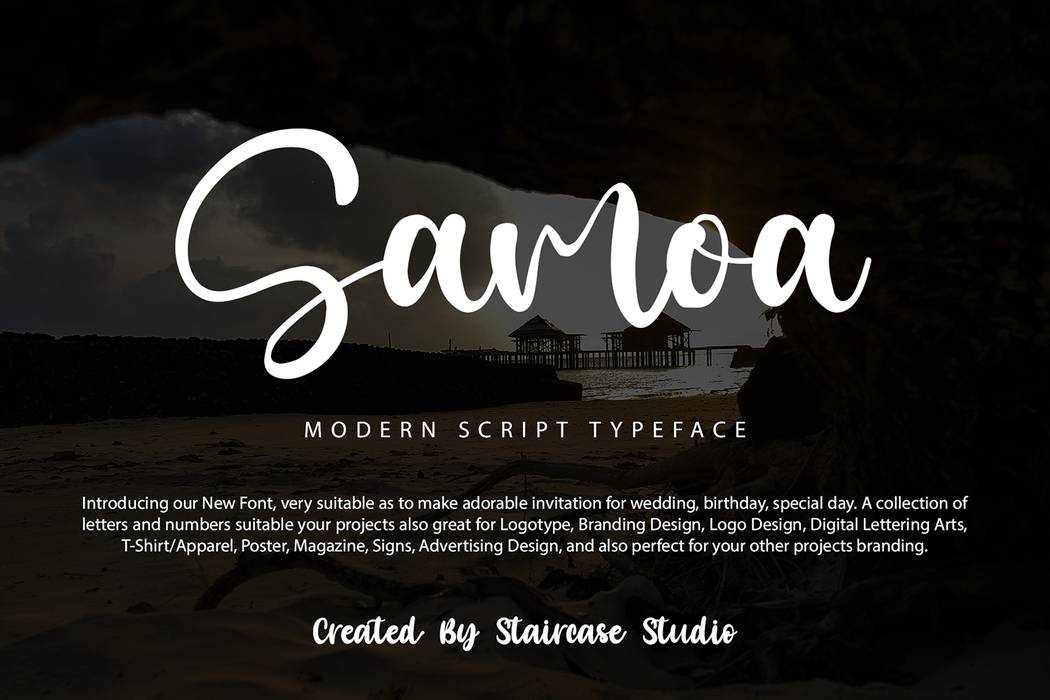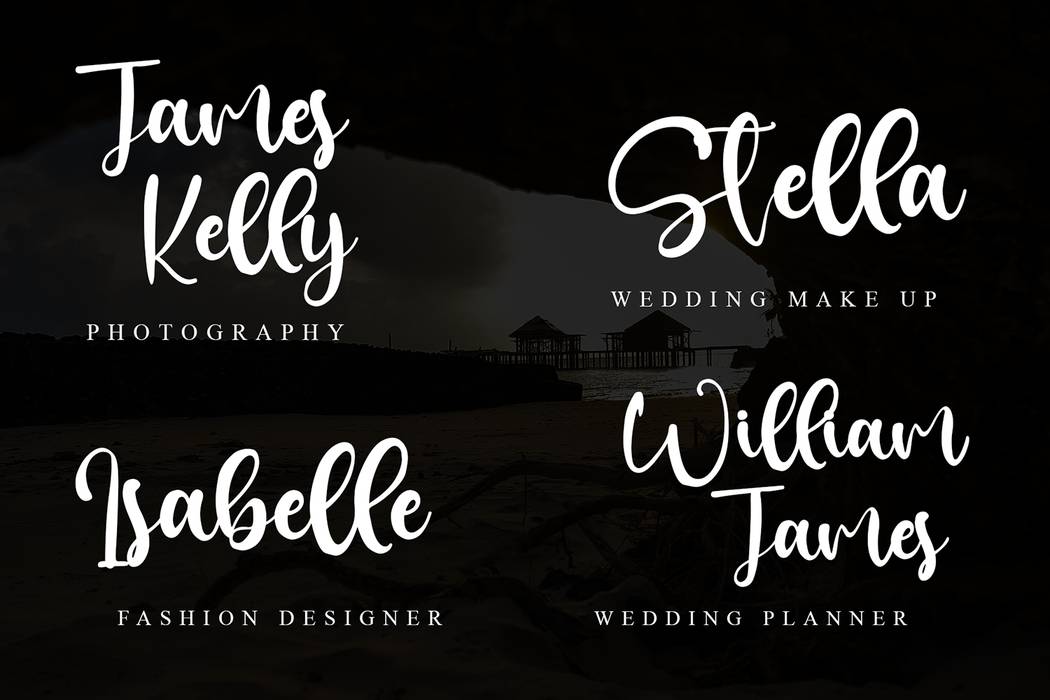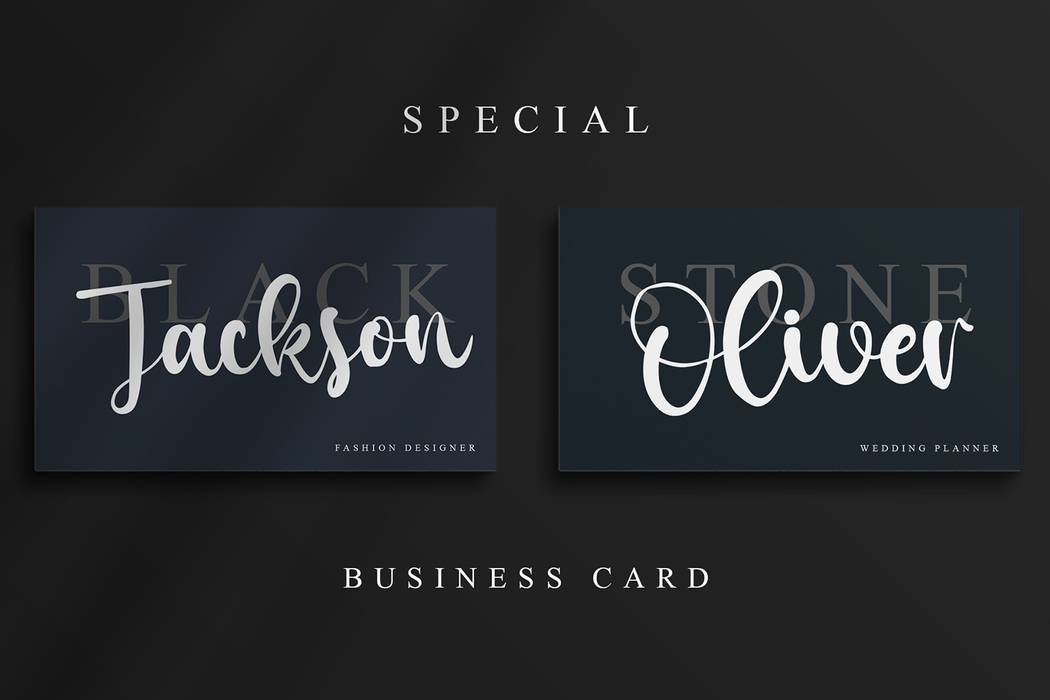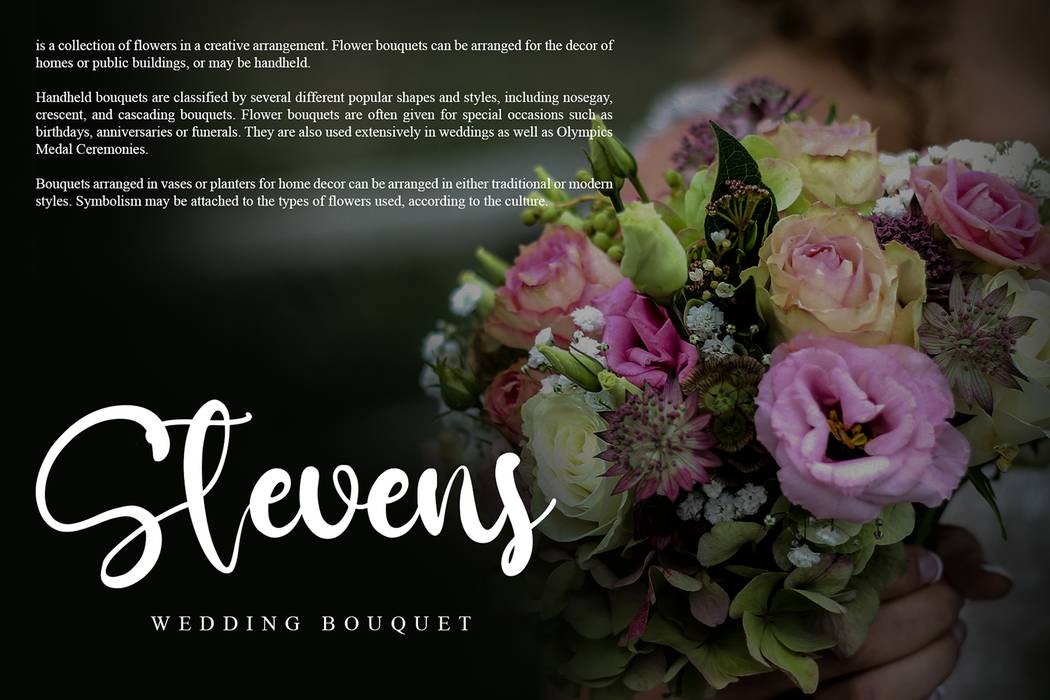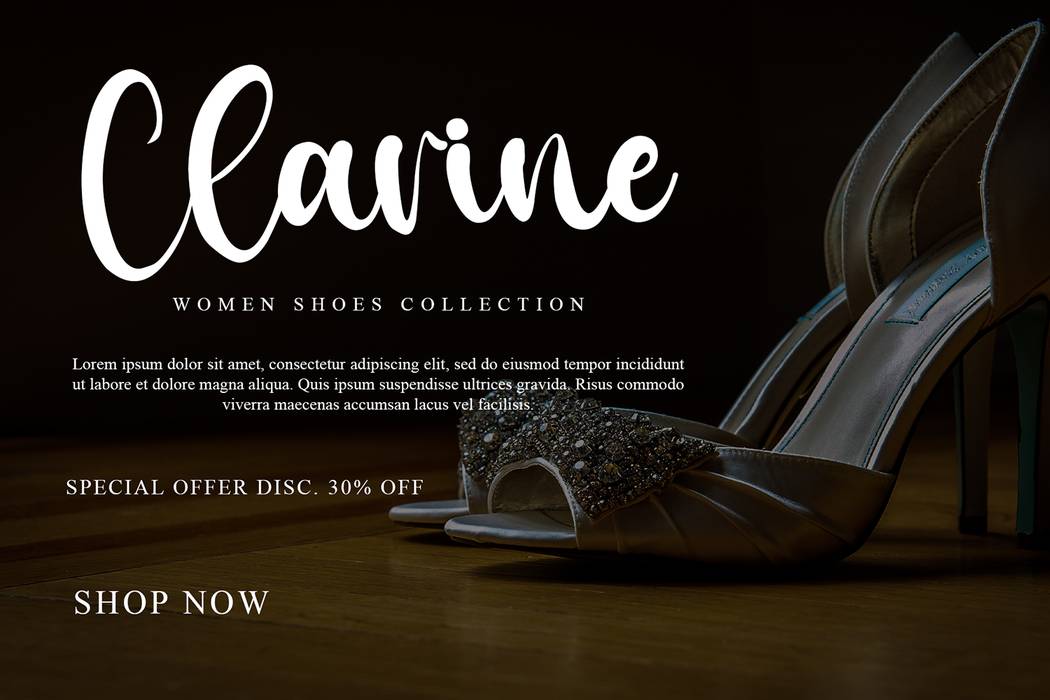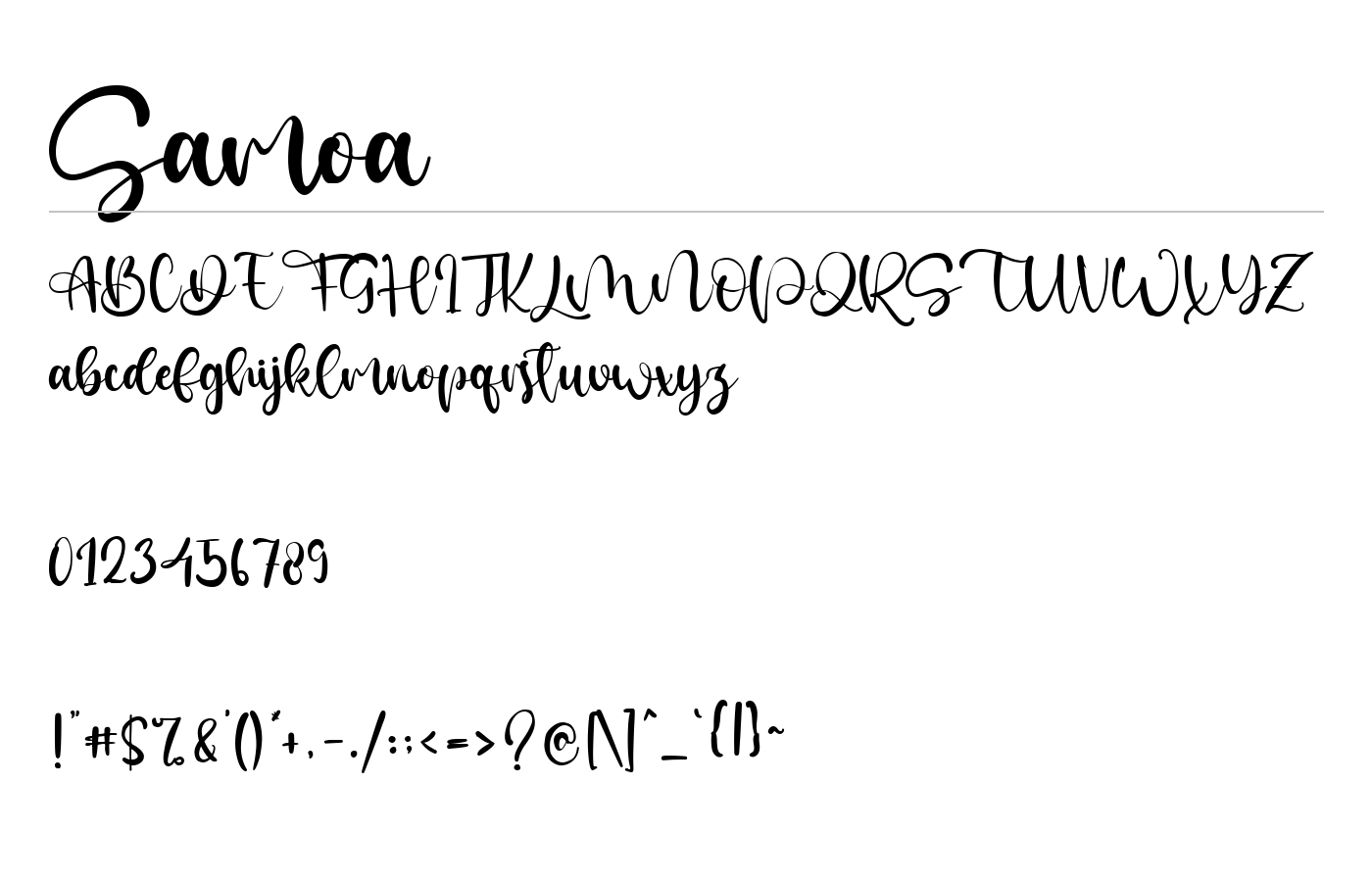
Samoa is a playful and elegant script font featuring smooth, flowing strokes with a natural handwritten feel. Its moderate weight and lively letterforms, including decorative swashes on uppercase letters, make it ideal for creative and personal design projects like invitations, branding, and packaging. This font adds a touch of warmth and charm, perfect for conveying friendliness and creativity in headlines and logos.
Samoa Font
About Samoa Font
| Font family | Samoa Font |
| Release date | 2021-09-16 |
| Designer | Staircase Studio |